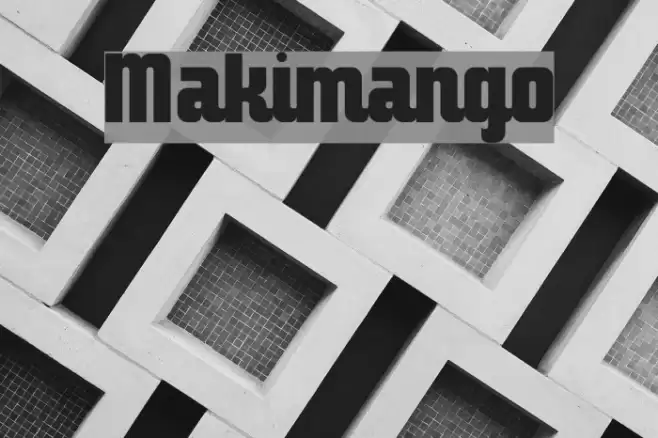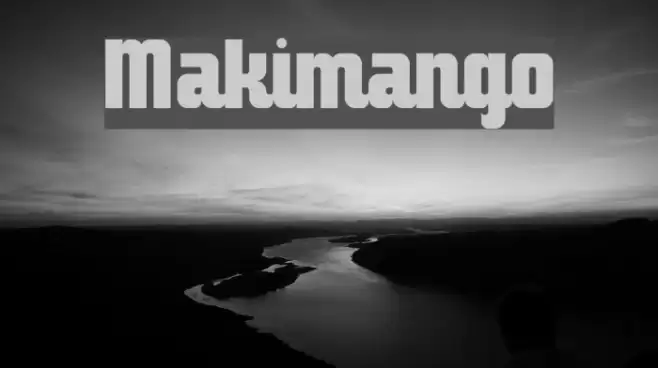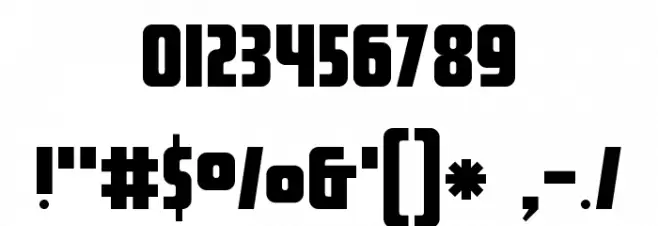
Makimango Font
Makimango Description
This font features a bold and robust design with thick strokes and a strong presence. The characters are uniformly wide, giving it a monospaced appearance, although it is not strictly monospaced. The uppercase letters are tall and commanding, while the lowercase letters maintain a consistent height, contributing to a cohesive look. The numerals are clear and easily distinguishable, making them suitable for display purposes. Special characters are well-integrated, maintaining the overall bold aesthetic. The font's geometric shapes and solid structure make it ideal for impactful headlines and attention-grabbing designs.
A bold, geometric font with thick strokes and a strong, cohesive design from Retro fonts.